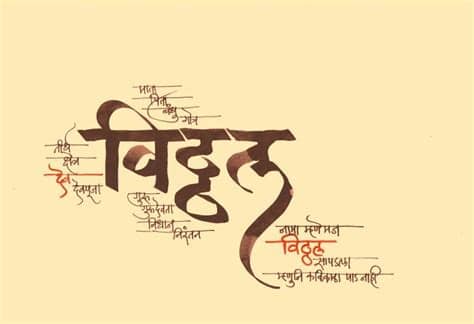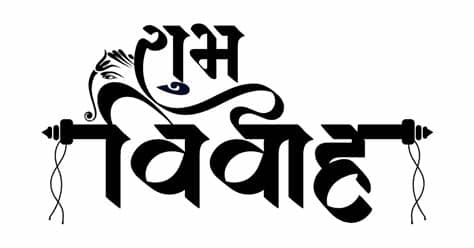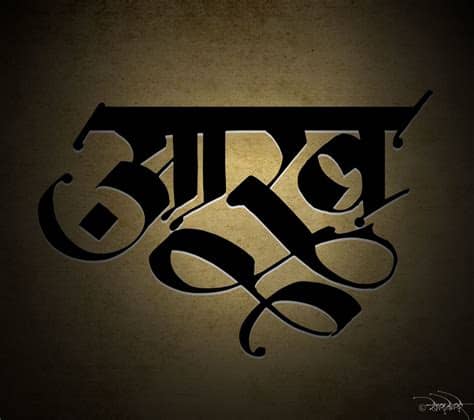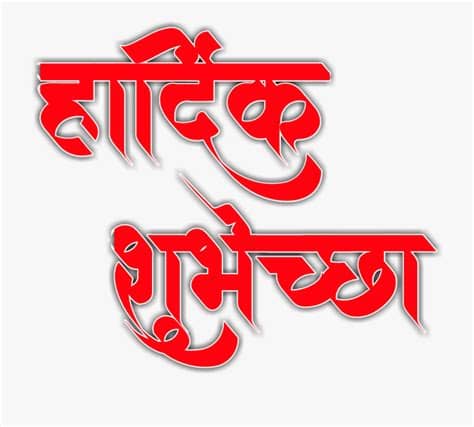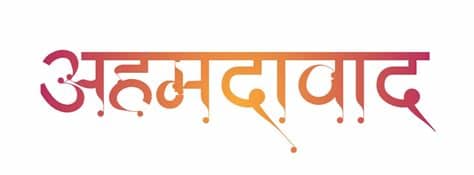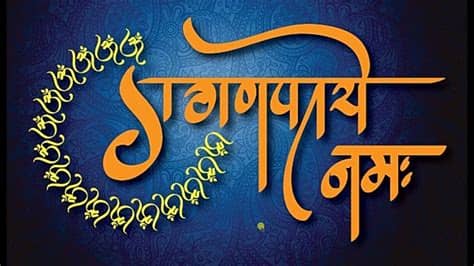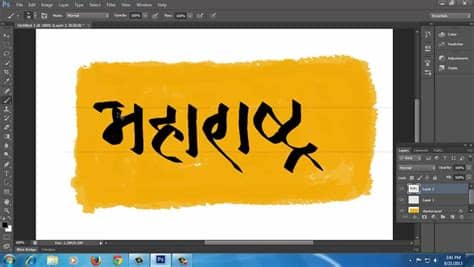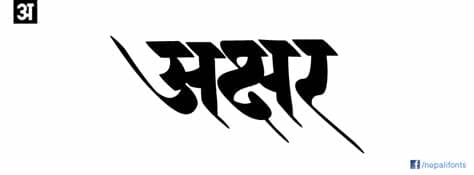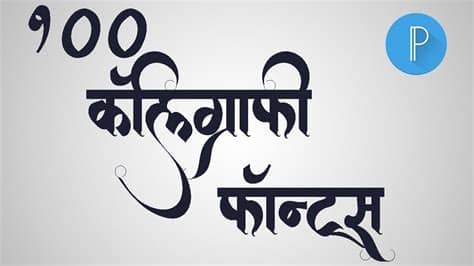
Marathi Calligraphy Fonts Online Free - मराठी कॅलीग्राफी | सुलेखन | सुंदर हस्ताक्षर | Download ... / Archive of freely downloadable fonts.. Calligraphic study of siddham script and developing devnagari calligraphy style inspired from the structure and calligraphic essence of siddham. It usually involves a nibbed pen or brush. Indian language calligraphy fonts in cool designs and alternate designs for a single letter for easy and fast work. And also work in calligraphy skill. The most popular fonts for typing marathi are kurtidev and devlyas font, which is used for everyday official and daily purpose.
Calligraphy or the art of fancy writing has thousands of however, either western calligraphy or chinese or arabic calligraphy, they have strict rules and shapes with a geometrical order of lining on. The word calligraphy is derived from greek, meaning beautiful writing. Calligraphy 1 regular font style is the design and execution of lettering with an expansive tipped instrument, brush, or another composing instrument. We create a websites, logo, and branding in marathi and english languages. See more ideas about marathi calligraphy, hindi calligraphy fonts.
It usually involves a nibbed pen or brush. Amazing font, hindi handwriting font,photoediting font,calligraphy fonts,font style ,fonts,free fonts. Calligraphy is an ancient writing technique using flat edged pens to create artistic lettering using thick and thin lines depending on the direction of the stroke. You can use these fonts to create custom styles. The word calligraphy is derived from greek, meaning beautiful writing. Browse by alphabetical listing, by style, by author or by popularity. Free download shivaji font, kiran font, kruti dev font, saras, lekhani, liza, lok, maya, nutan, priya, sharda, richa etc font free marathi langauge written in devnagari script, so the all font that are used in devnagari aka hindi font are also used for marathi typing. The most popular fonts for typing marathi are kurtidev and devlyas font, which is used for everyday official and daily purpose.
Amazing font, hindi handwriting font,photoediting font,calligraphy fonts,font style ,fonts,free fonts. Browse by alphabetical listing, by style, by author or by popularity. The word calligraphy is derived from greek, meaning beautiful writing. Hindi font और marathi font आज हर किसी की आम जरुरत बन गए है |. In the article below, we have found 60 of the best free calligraphy fonts to download and use to bring charm to your designs.
This great collection was created by nandedians blog. 50 calligraphy fonts to create great calligraphic text. We are giving you all these fonts with their previews so you can grab just that font which you need. The word calligraphy is derived from greek, meaning beautiful writing. We hope you all will enjoy this post. We create a websites, logo, and branding in marathi and english languages. It usually involves a nibbed pen or brush. What can calligraphy font generator do for you:
You can customize your experience with live font previews. Hindi font और marathi font आज हर किसी की आम जरुरत बन गए है |. Marathi fonts download free | सबसे पहले इस बात का ध्यान रखे की marathi fonts (मराठी फोंट्स) जो हम आपको देने वाले है ये आपके android mobile phone के apps pixellab और picart के लिए है। font no. For more information and copyrights read at. Nowadays, there is a large number of fonts and text styles out there that one can choose from while the calligraphy font style is a writing style that has been used in holy scriptures, letters, texts, literature and much more. वह व्यक्ति photography, photo editing और video editing करता है उसके लिए marathi calligraphy fonts और hindi. To generate your custom text, simple enter your letter or word in the box below, choose options and generate your free calligraphy text letters instantly in graphic format so you can print or save your. Unicode fonts for ancient scripts. The word calligraphy is derived from greek, meaning beautiful writing. You can use these fonts to create custom styles. Free download shivaji font, kiran font, kruti dev font, saras, lekhani, liza, lok, maya, nutan, priya, sharda, richa etc font free marathi langauge written in devnagari script, so the all font that are used in devnagari aka hindi font are also used for marathi typing. We hope you all will enjoy this post. The home of free fonts since 1998.
This great collection was created by nandedians blog. Latin script (free fonts) latin script (handwritten fonts) turkish fonts at fontlibrary. To generate your custom text, simple enter your letter or word in the box below, choose options and generate your free calligraphy text letters instantly in graphic format so you can print or save your. Google fonts now supports variable fonts. 1 2 3 4 5 6 7 8 9 10.
We are giving you all these fonts with their previews so you can grab just that font which you need. Hindi font और marathi font आज हर किसी की आम जरुरत बन गए है |. Now available in colors too, not just solid color, this comes with great effects such as gradient, opacity get bunch of creative calligraphy fonts for hindi, marathi, gujarati & english too! Indian language calligraphy fonts in cool designs and alternate designs for a single letter for easy and fast work. And also work in calligraphy skill. The most popular fonts for typing marathi are kurtidev and devlyas font, which is used for everyday official and daily purpose. Hello by graphix line studio. Calligraphic study of siddham script and developing devnagari calligraphy style inspired from the structure and calligraphic essence of siddham.
We are giving you all these fonts with their previews so you can grab just that font which you need.
Hello by graphix line studio. Latin script (free fonts) latin script (handwritten fonts) turkish fonts at fontlibrary. This collection of 60 free calligraphy fonts has all your bases covered, from romantic and feminine swirls to masculine bold monoline fonts that will add character to any design. It usually involves a nibbed pen or brush. This is biggest (189 fonts) collection of marathi fonts on internet. This great collection was created by nandedians blog. What can calligraphy font generator do for you: You can customize your experience with live font previews. Hindi marathi hindi marathi calligraphy fonts calligraphy fonts. Google fonts now supports variable fonts. All fonts devnagri and art juyttyuioploiuytdfhkkyfklkhgghjkl;lkjhgcghjklllkvbnkjhjk. This font is indeed a class apart. 50 calligraphy fonts to create great calligraphic text.